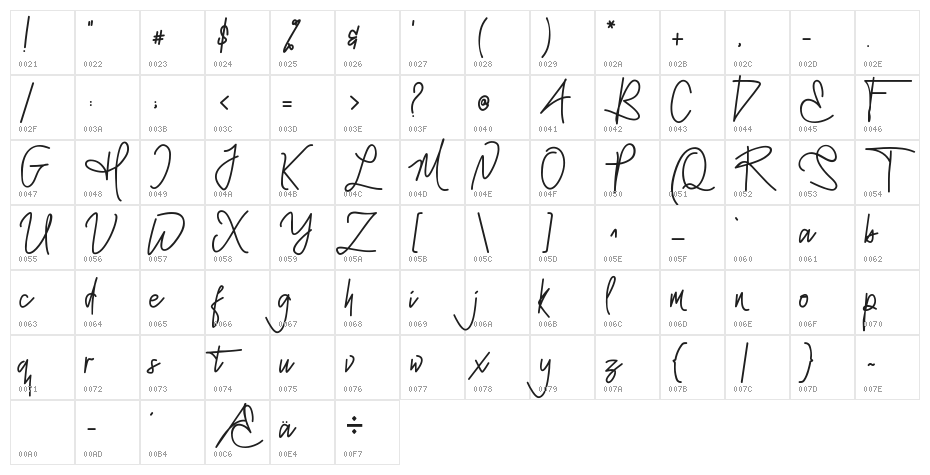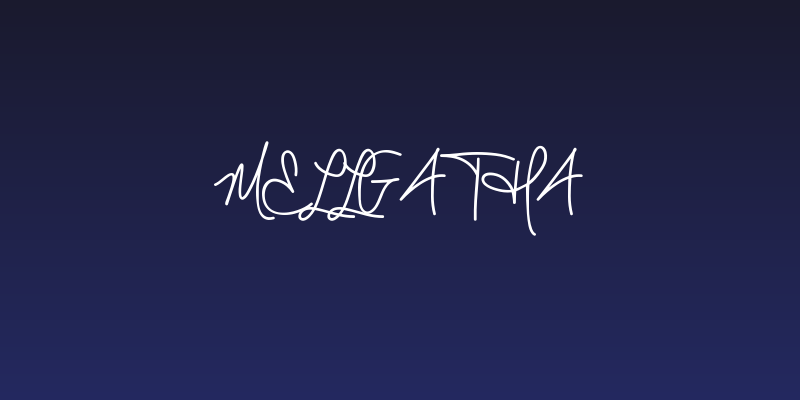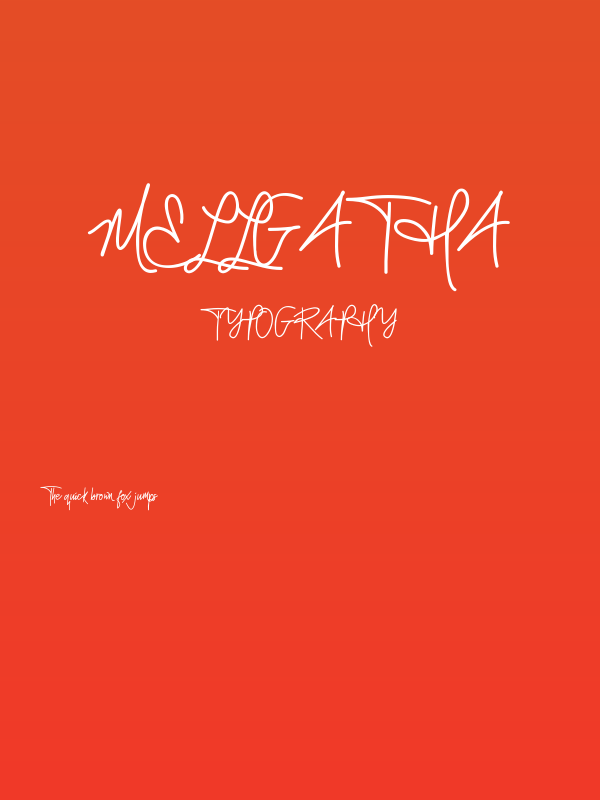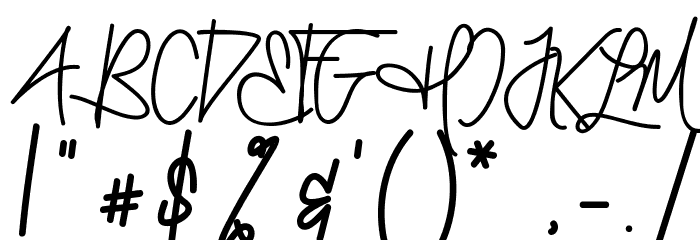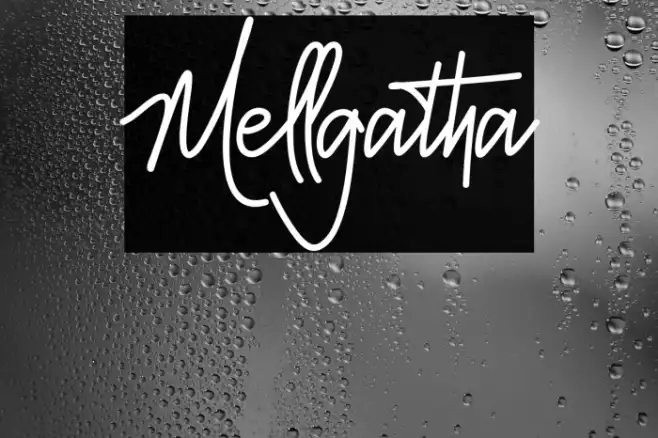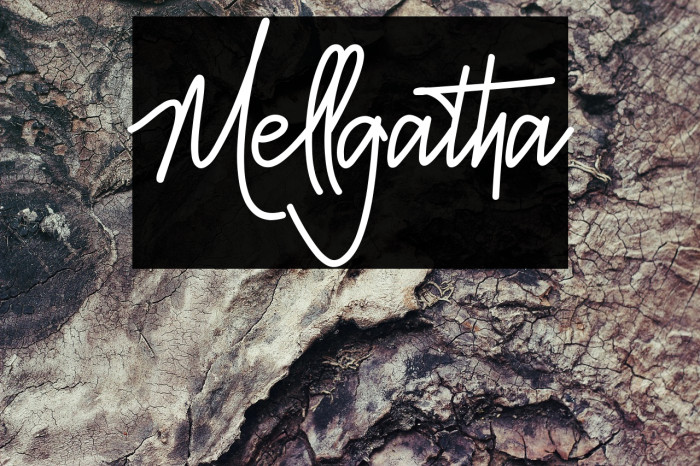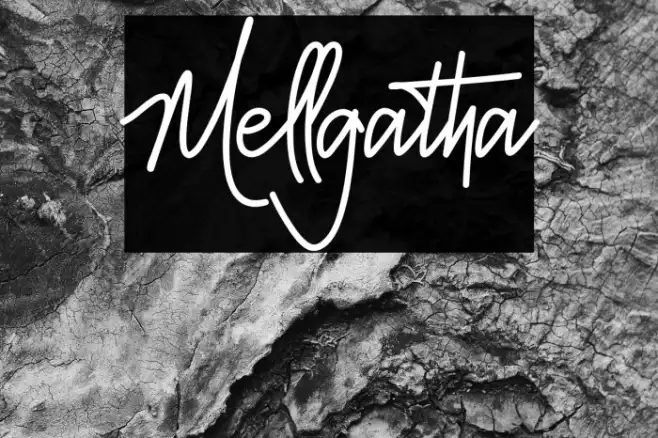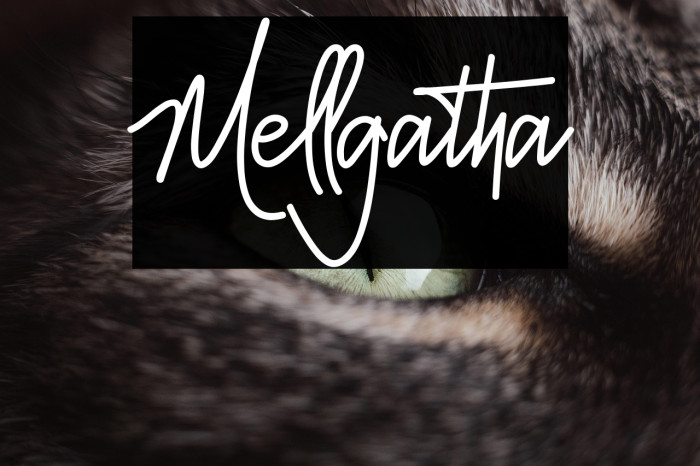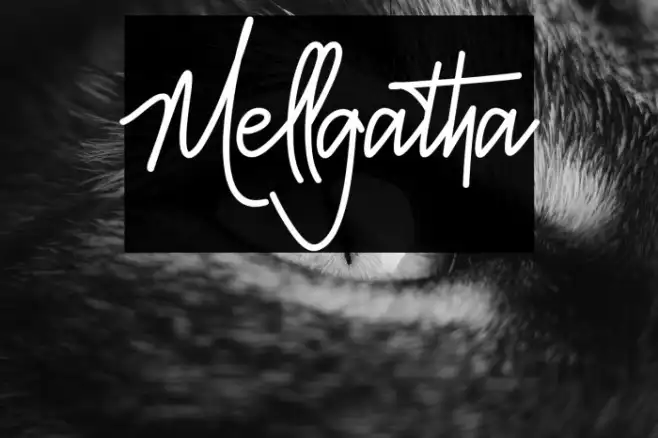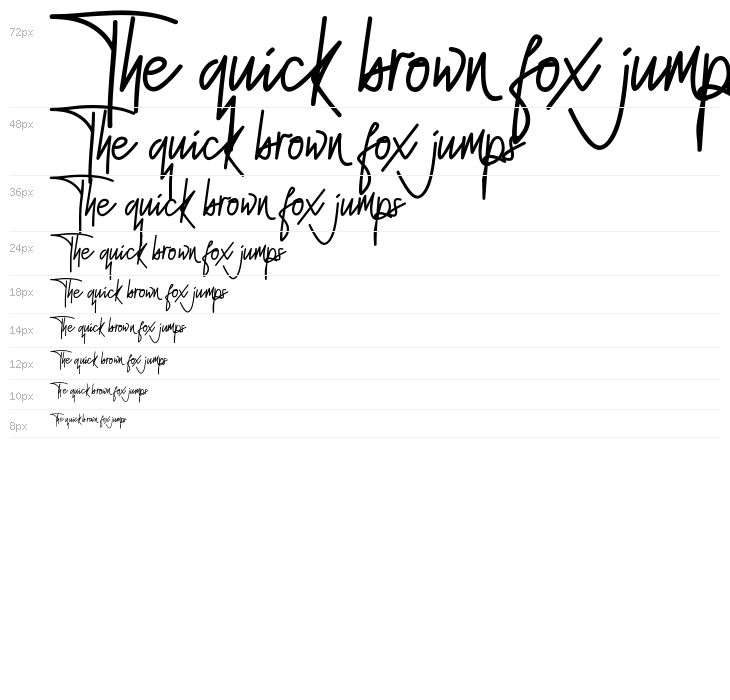
Mellgatha Font
Mellgatha Description
This font features a dynamic and expressive handwritten style, characterized by its flowing, cursive letterforms. The strokes are bold and confident, with a slight slant that adds to its casual and informal appearance. The uppercase letters are particularly elaborate, with intricate loops and swirls that give the font a sense of movement and energy. The lowercase letters maintain this fluidity, ensuring a cohesive look throughout. The numerals and special characters are equally stylized, making them stand out with their unique flair. Overall, this font exudes a sense of creativity and spontaneity, making it ideal for projects that require a personal touch.
MELLGATHA UPPERCASE
MELLGATHA LOWERCASE
MELLGATHA OTHER CHARS